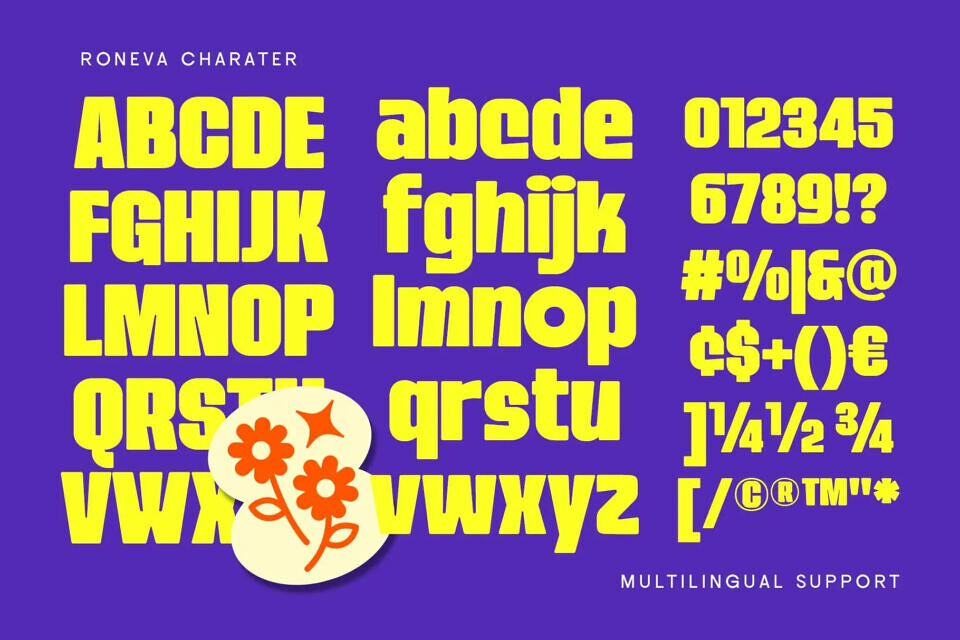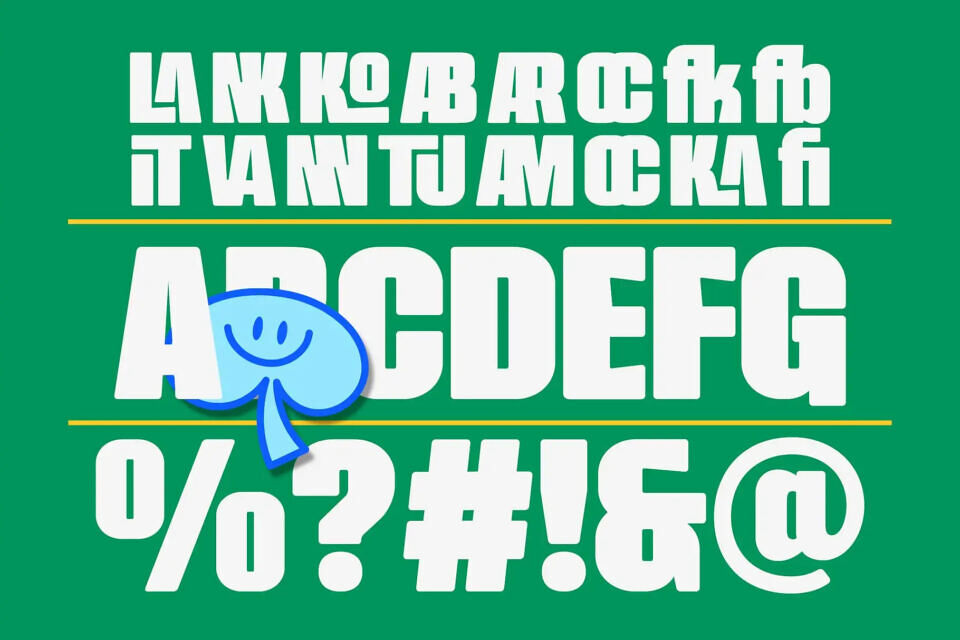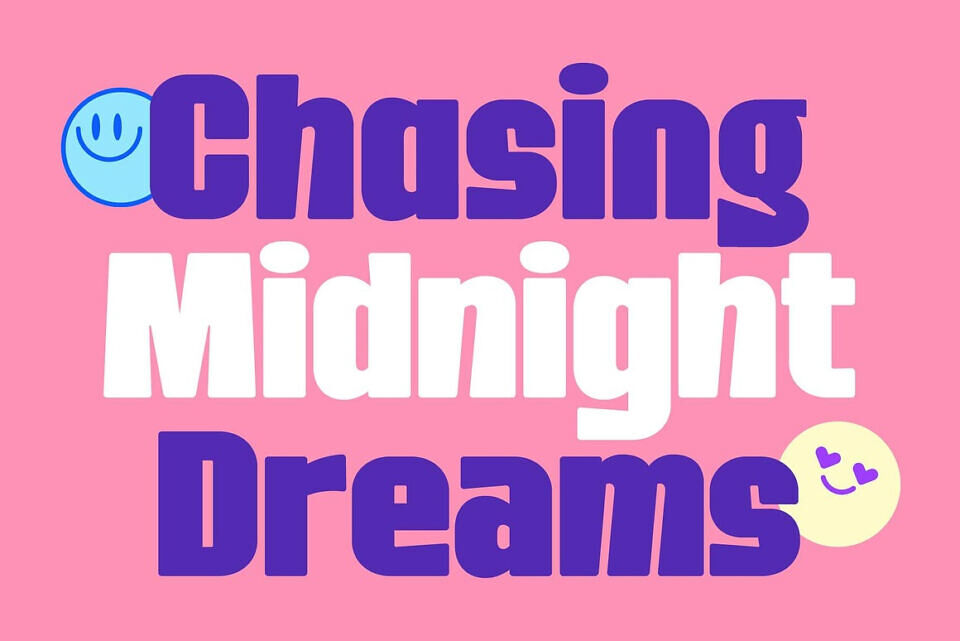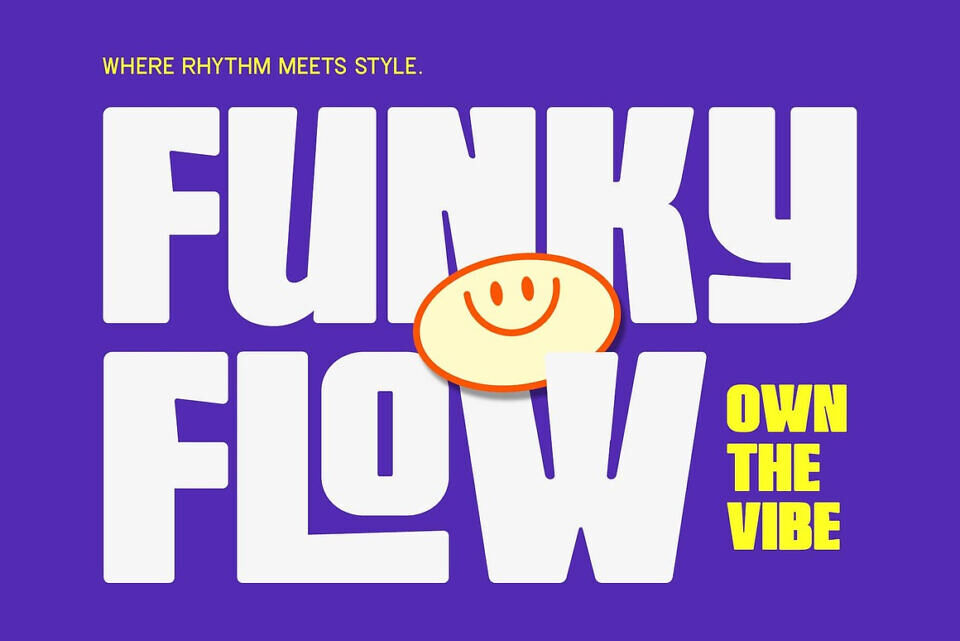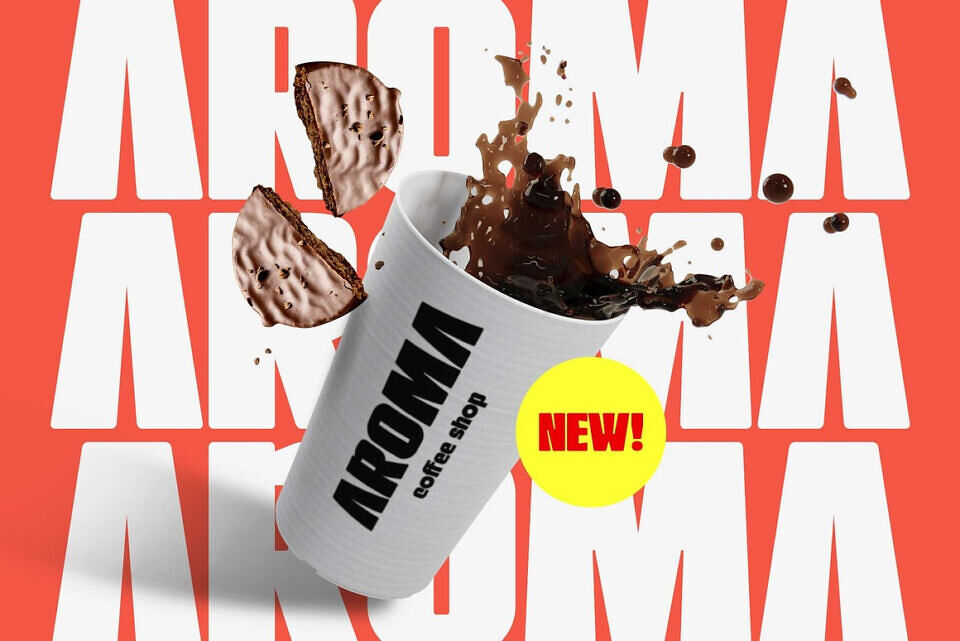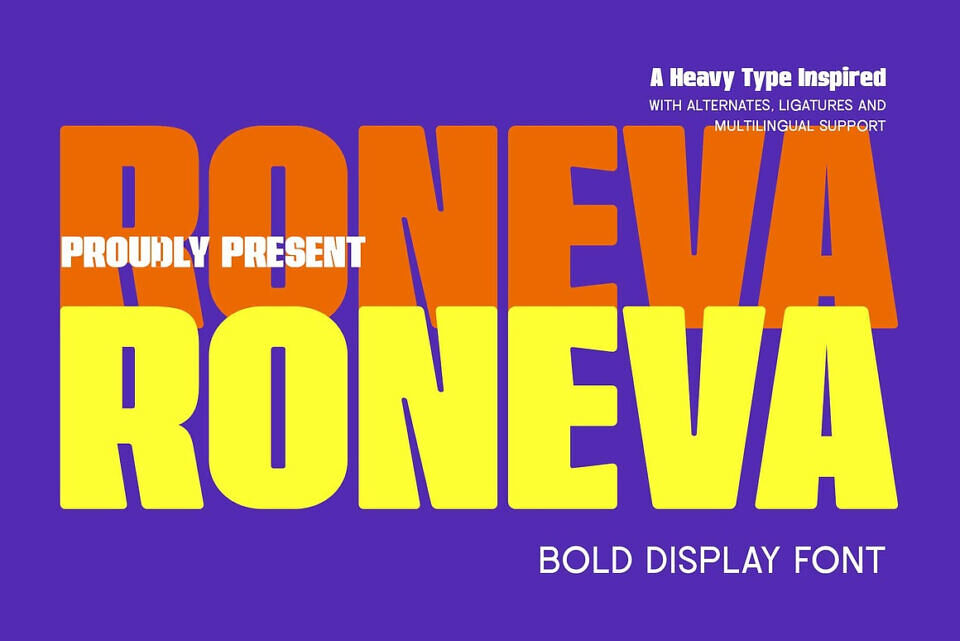
Roneva Font
Bring playful rhythm and bold character into your designs with Roneva — a condensed sans serif crafted in a funky style full of personality. With its chunky letterforms, groovy curves, and energetic flow, this typeface is perfect for projects that need to stand out with confidence and fun vibes.
Perfect for posters, logos, branding, packaging, social media graphics, and headlines, Roneva delivers a retro-inspired style that grabs attention instantly. Add it to your creative toolkit and let your designs groove with style!